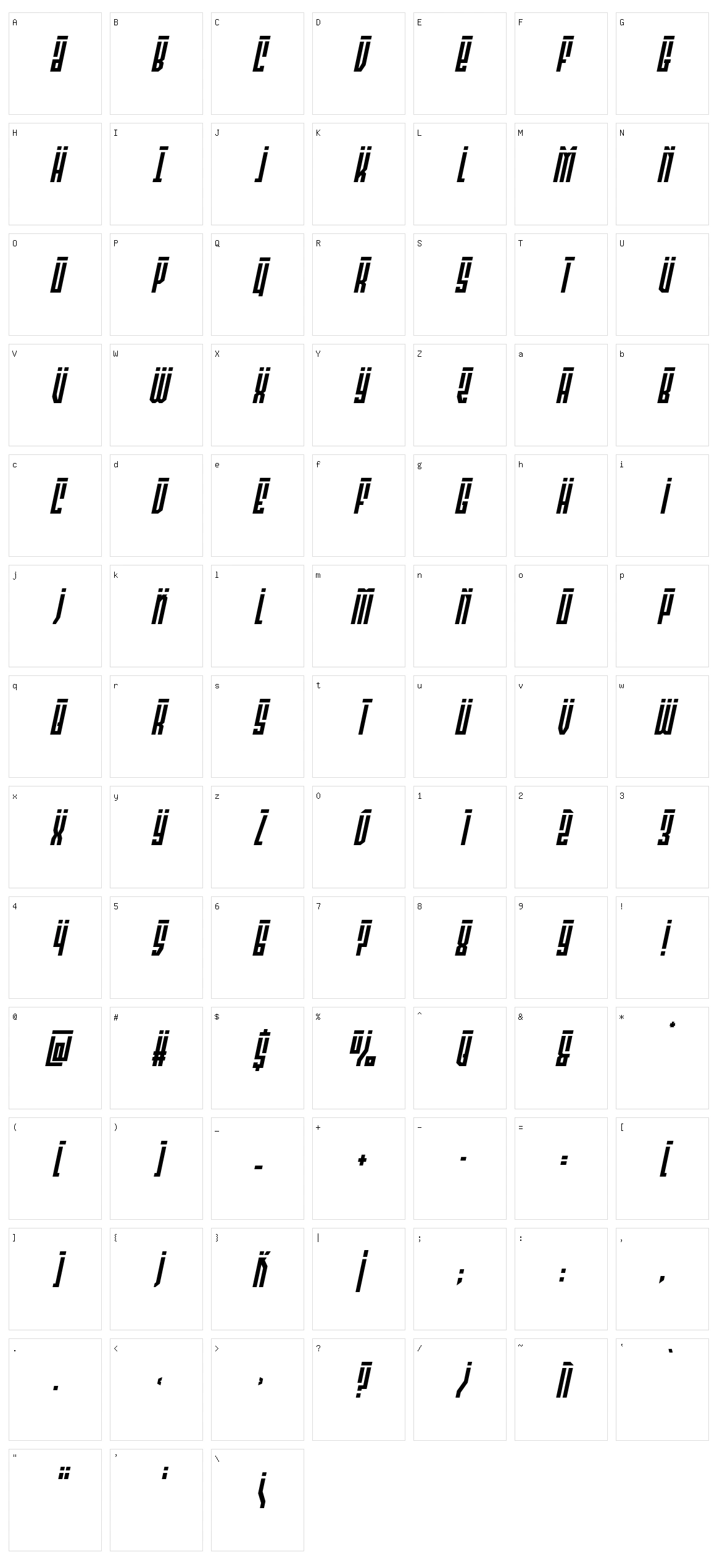
Templar Shield Font Version 1.0
This font comes with the following 34 versions: Regular, Italic, Semi-Italic, Condensed, Condensed Italic, Condensed Semi-Italic, Expanded, Expanded Italic, Expanded Semi-Italic, Wide, Wide Italic, Wide Semi-Italic, 3D, 3D Italic, 3D Block, 3D Block Italic, Halftone, Halftone Italic, Laser, Laser Italic, Compact, Compact Italic, Compact Semi-Italic, Spaced, Spaced Italic, Spaced Semi-Italic, Title, Title Italic, Slight-Italic, Super-Italic, Leftalic, Semi-Leftalic, Super-Leftalic and Slight-Leftalic.